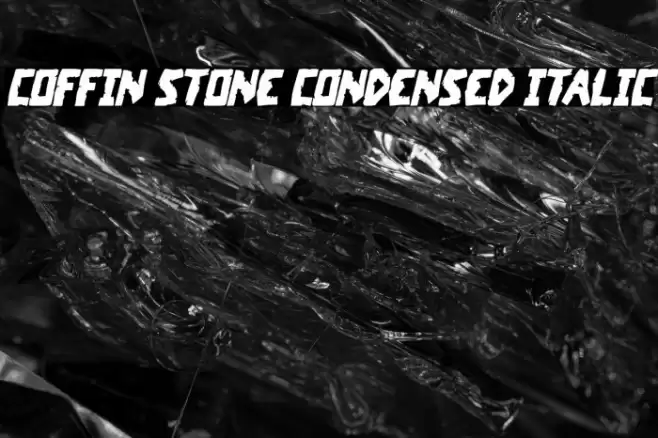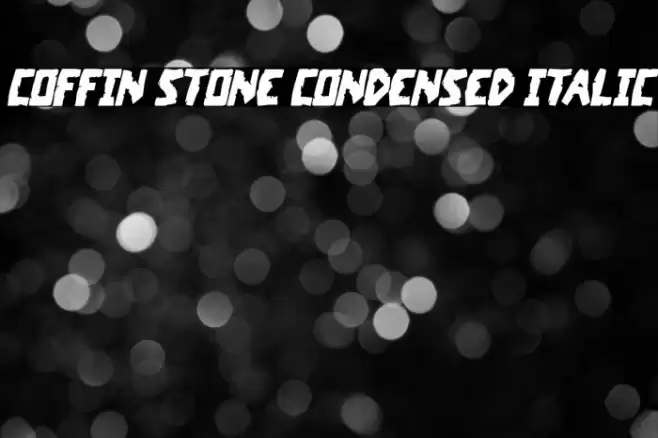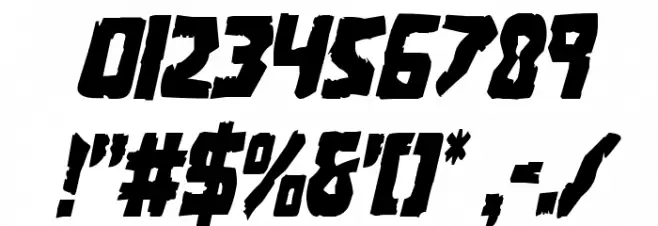
Coffin Stone Condensed Italic Font
Coffin Stone Condensed Italic Description
This font features a bold and edgy design with sharp, angular lines that create a sense of movement and intensity. The condensed form enhances its striking appearance, making it ideal for impactful statements. The italic style adds a dynamic slant, further emphasizing its aggressive and modern aesthetic. Each character is uniquely crafted with irregular edges, giving it a rugged and raw feel. The font maintains a consistent weight throughout, ensuring readability while retaining its bold character. Its distinctive style makes it suitable for projects that require a strong visual impact.
A bold, angular, and condensed italic font with a rugged, modern style from Uncategorized fonts.
- Proposed Projects: Ideal for posters, album covers, video game titles, and branding that requires a bold, edgy look.
- Overall Style: Modern, Edgy, Rugged